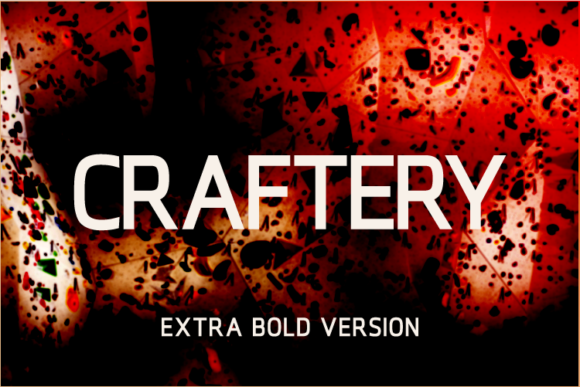
Embark on a typographic adventure with Craftery Extra Bold, the modern sans serif font that breathes life into your creative endeavors. Its clean lines and minimalist aesthetic evoke a sense of elegance and sophistication, effortlessly enhancing the impact of your designs.
Immerse yourself in the world of Craftery Extra Bold, where simplicity meets versatility. This font family exudes a timeless appeal, adapting seamlessly to a wide spectrum of design projects. Craft logos that exude professionalism, design brochures that captivate audiences, or create social media graphics that pop with personality. The possibilities are endless, waiting for your imagination to ignite.
Experience the allure of Craftery Extra Bold, meticulously crafted by the renowned A Christie. Each character embodies a harmonious blend of geometry and fluidity, resulting in a font that is both visually striking and highly legible. Allow Craftery Extra Bold to elevate your designs, transforming them into compelling masterpieces that leave a lasting impression.
Step into the spotlight with Craftery Extra Bold, a font that commands attention without overpowering your content. Its balanced stroke weights ensure readability across various sizes, making it an ideal choice for both headlines and body text. Whether you're crafting digital or print designs, Craftery Extra Bold ensures your message is conveyed with clarity and impact.
Unleash your creativity and embrace the endless possibilities of Craftery Extra Bold. Its modern sans serif style seamlessly complements a diverse range of design aesthetics, from minimalist and contemporary to bold and experimental. Let Craftery Extra Bold be your artistic muse, inspiring you to create designs that resonate with audiences and leave an indelible mark.